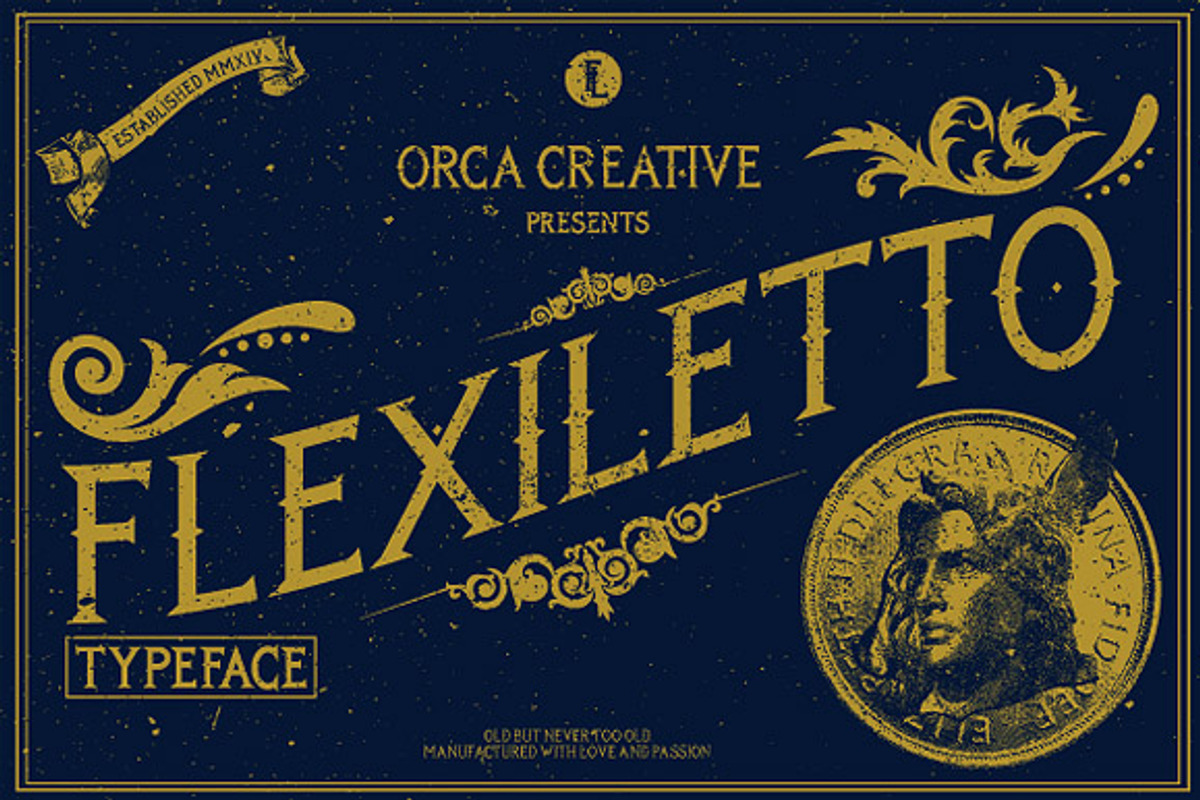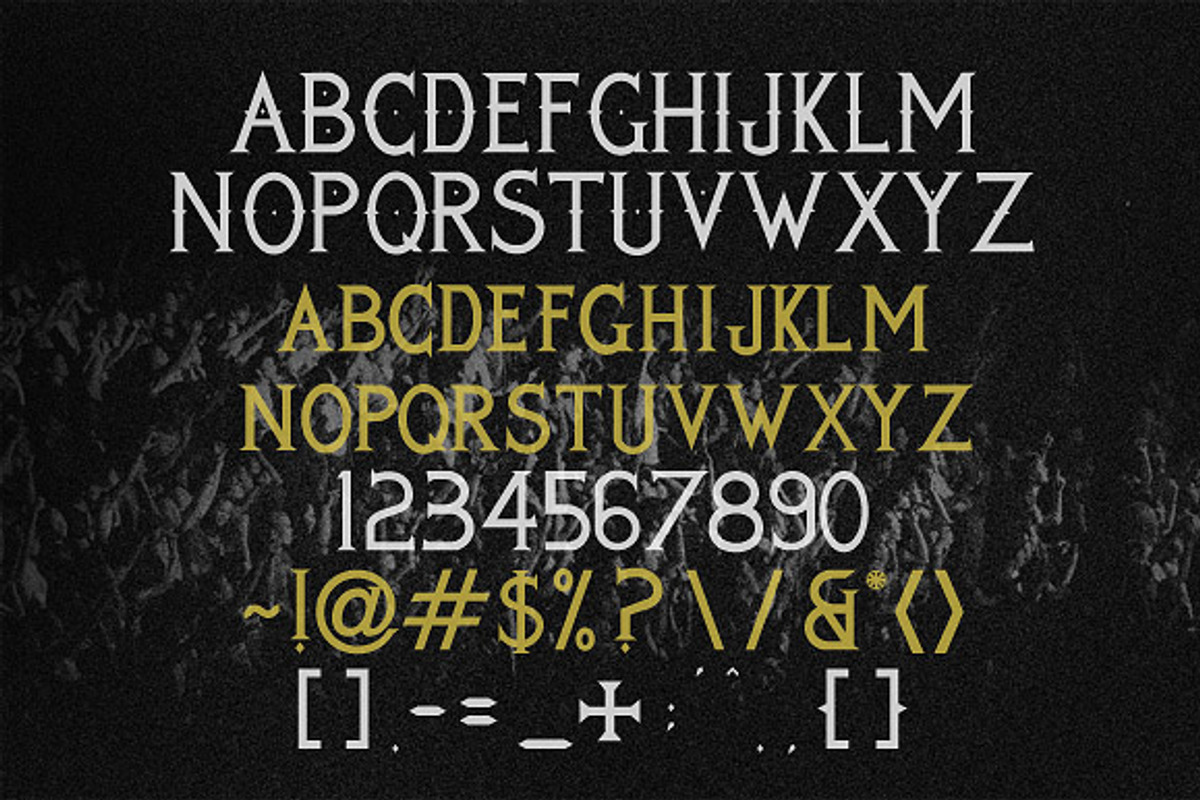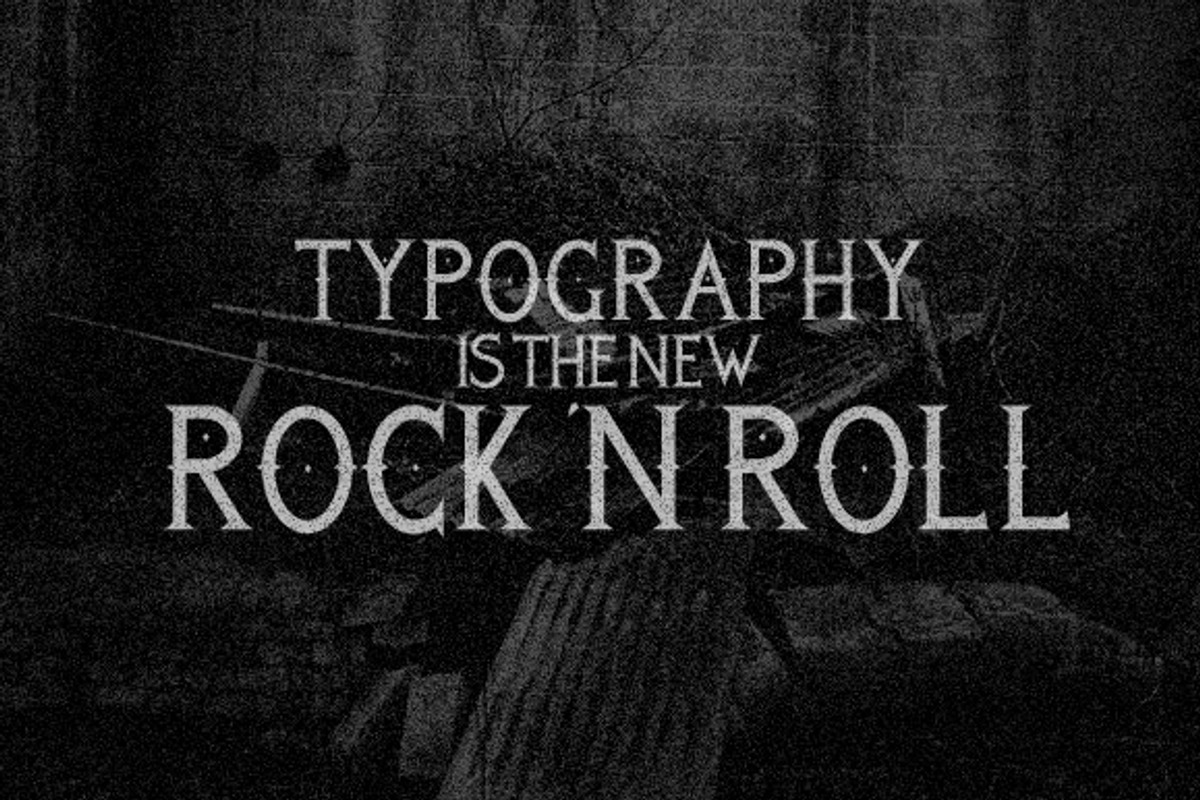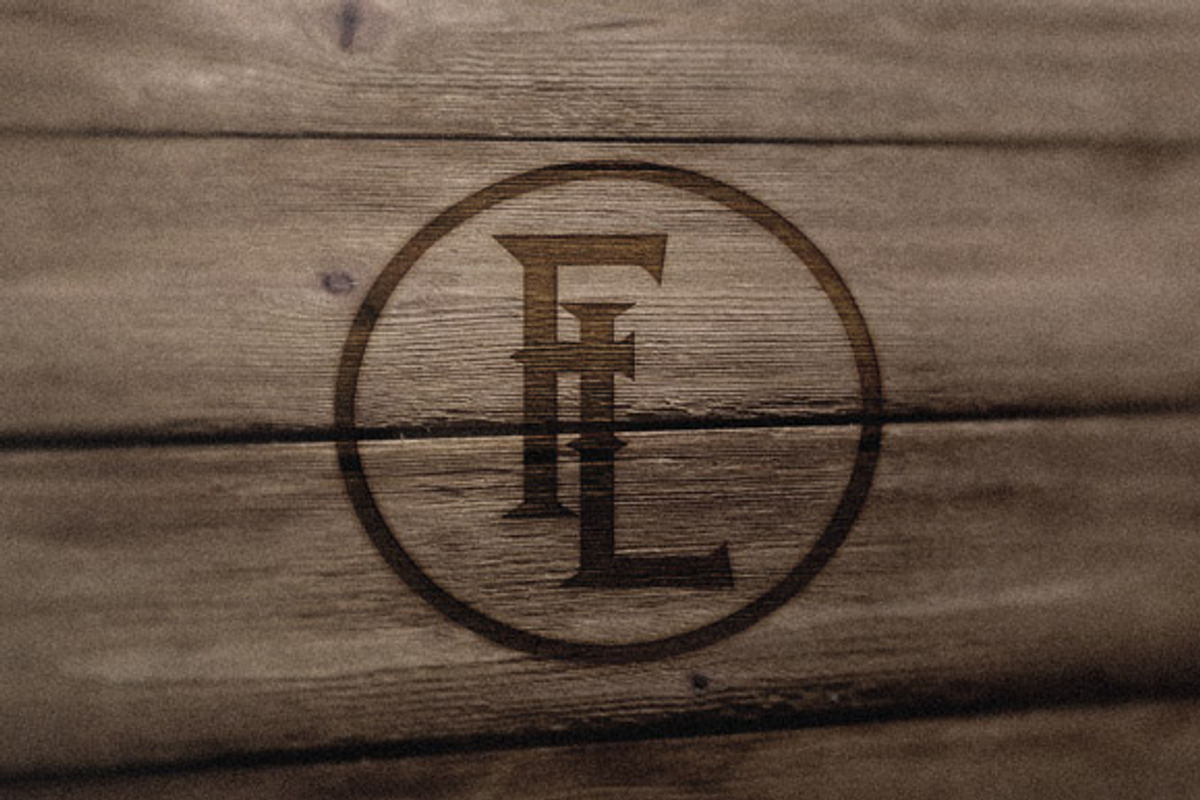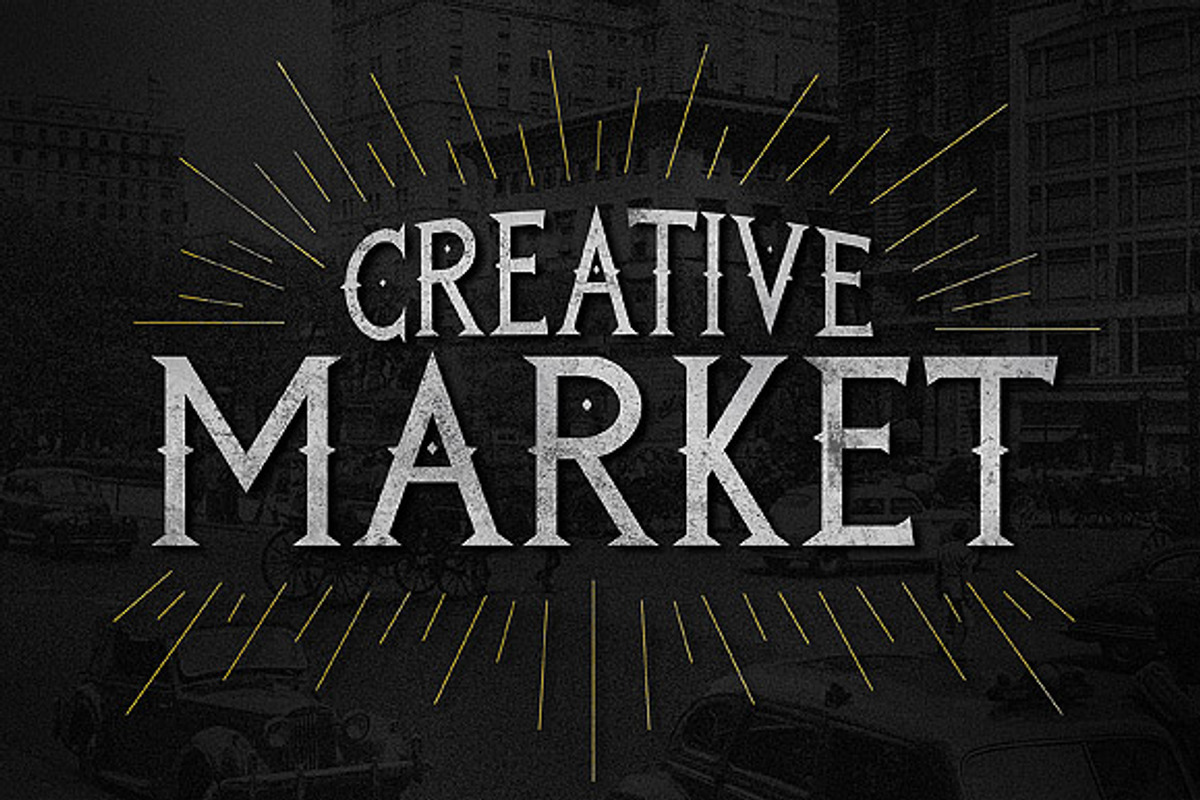
Flexiletto Typeface
ORCA Creative presents
"FLEXILETTO" our very first typeface collection.
Suitable most for any print usage with vintage and classy feel.